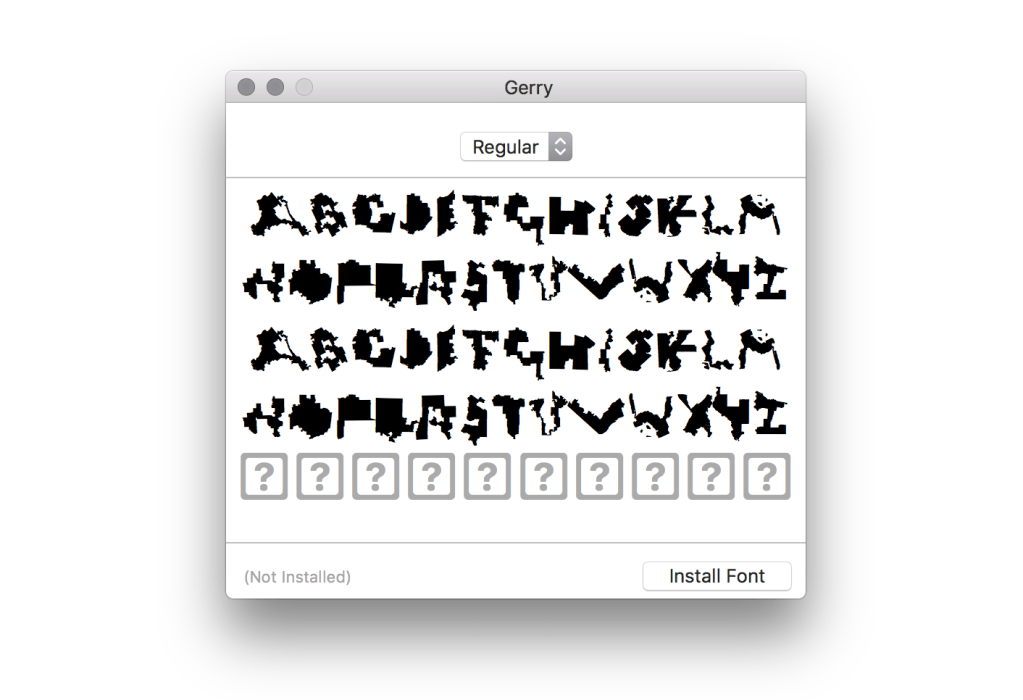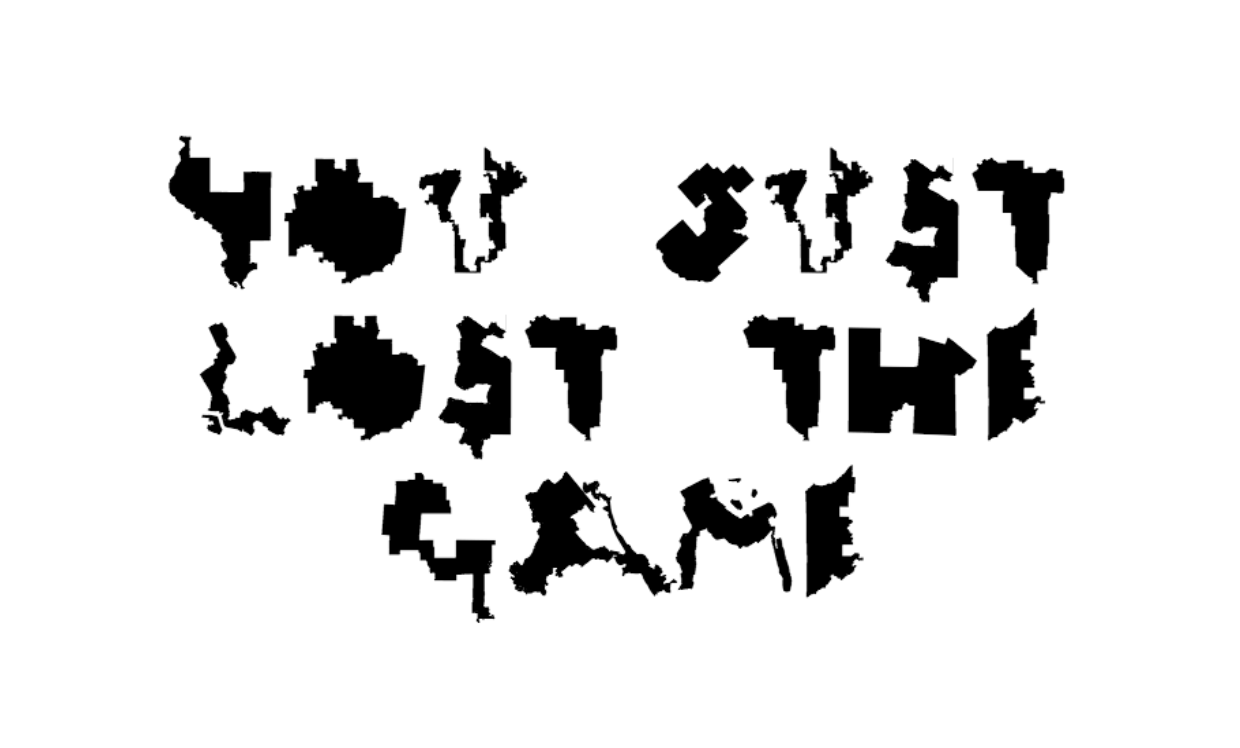
There are a lot of ugly fonts out there, but outside Papyrus, few illustrate a deeper sickness in our society. A new typeface called Ugly Gerry does just that: Its letters are formed from the shapes of grotesquely gerrymandered U.S. districts.
There’s no doubt gerrymandering is one of the scourges of our political “system”: nothing more than a way for incumbents to stack the odds in their favor, further disenfranchising and redlining disfavored populations and districts.
And while districts may take many shapes due to the natural features of the cities and regions they occupy or contain, in many contentious ones the hand of the man is more than evident, producing contortions weird and various.
The bright side is that this variety is so great that among it can be found shapes resembling (slightly) all the capital letters of the English alphabet. So that’s just what rogue creatives Ben Doessel and James Lee did.
“After seeing how janky our Illinois 4th district had become, we became interested in this issue,” the team wrote in a little press release they provided. “We noticed our district’s vague, but shaky U-shape, then after seeing other letters on the map, the idea hit us, let’s create a typeface so our districts can become digital graffiti that voters and politicians can’t ignore.”
The resulting type is ugly, but so, they point out, is gerrymandering. They also had to cheat a few by sticking two districts together, but that too seems in the spirit of the thing.